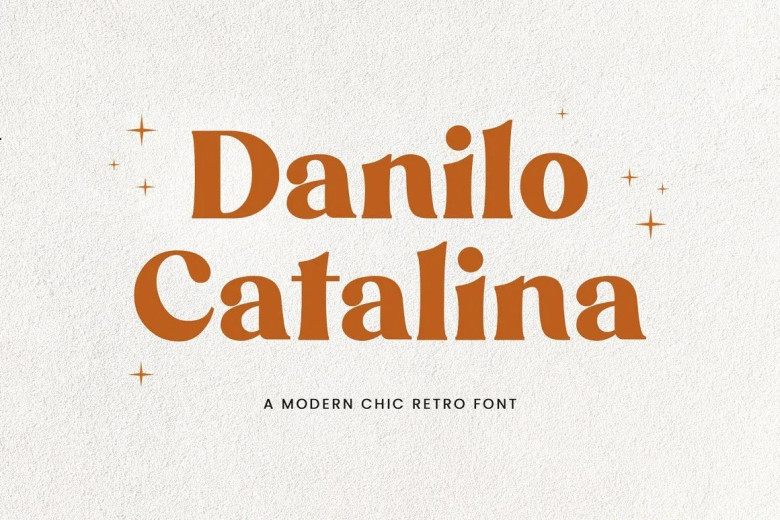
Danilo Catalina Font
Danilo Catalina is a vintage-style serif font that looks beautiful. A variety of projects such as signature, stationery, logo, wedding typography quotes, magazine and book covers, website headers and clothing can make use of this font. As well, there is something about “male” and “female” in fashion related branding, editorial design or display of publications.
Danilo Catalina Serif Font